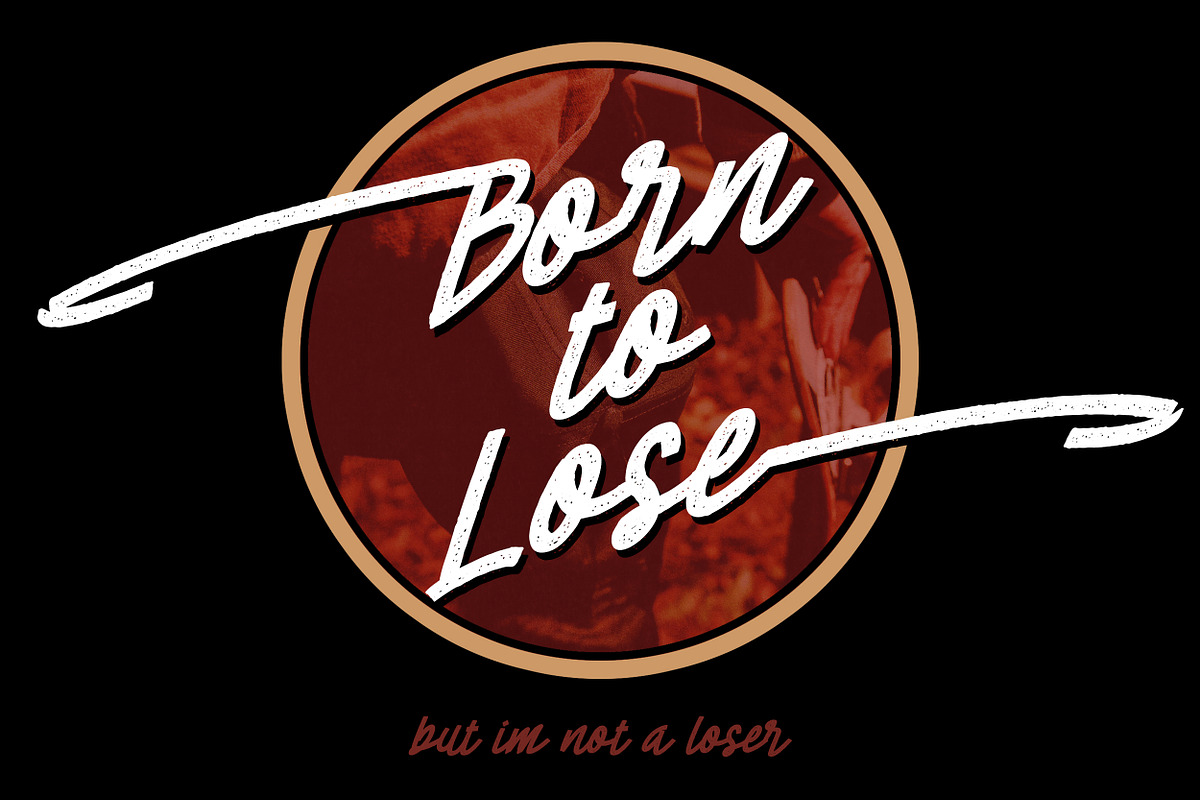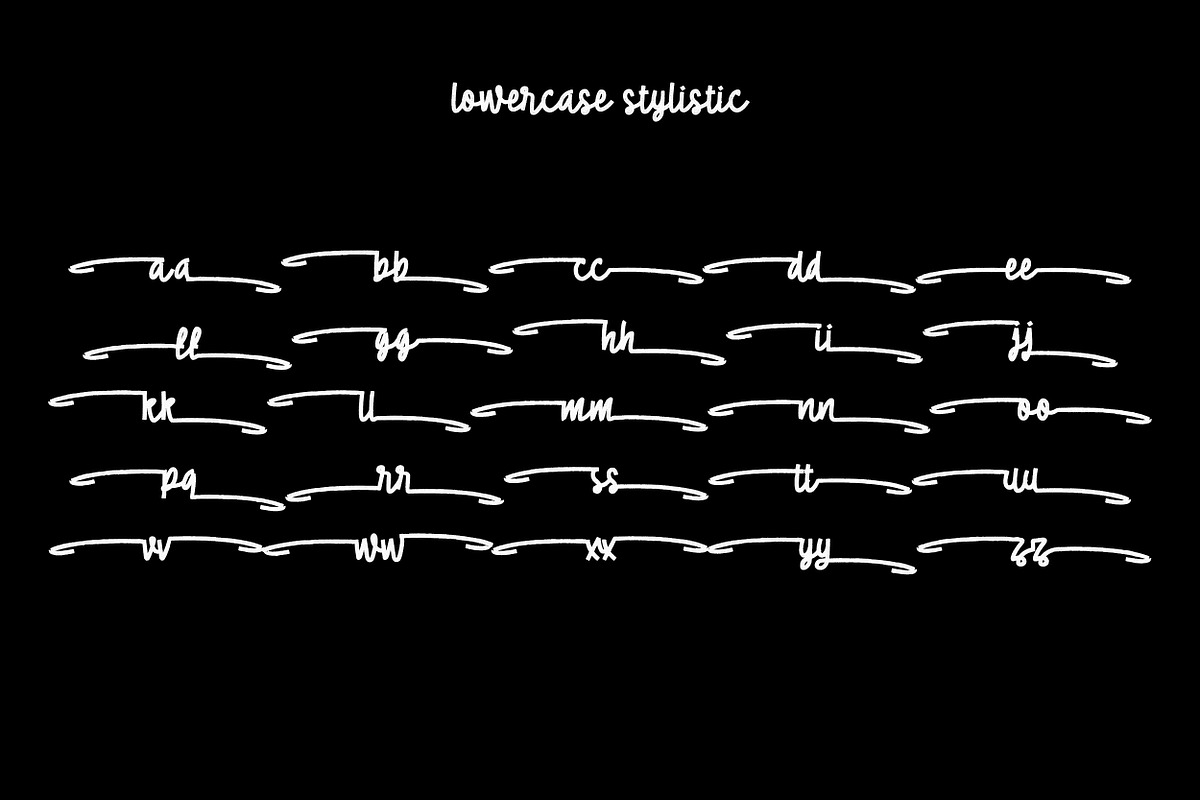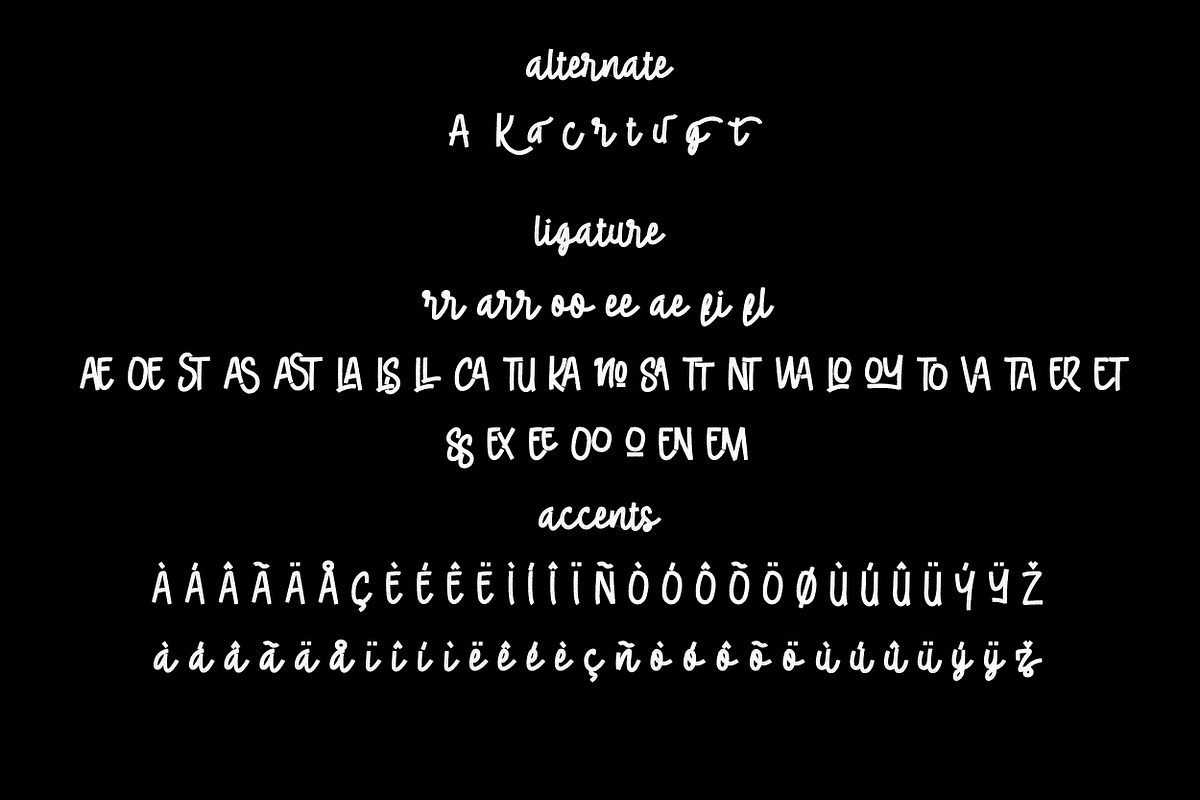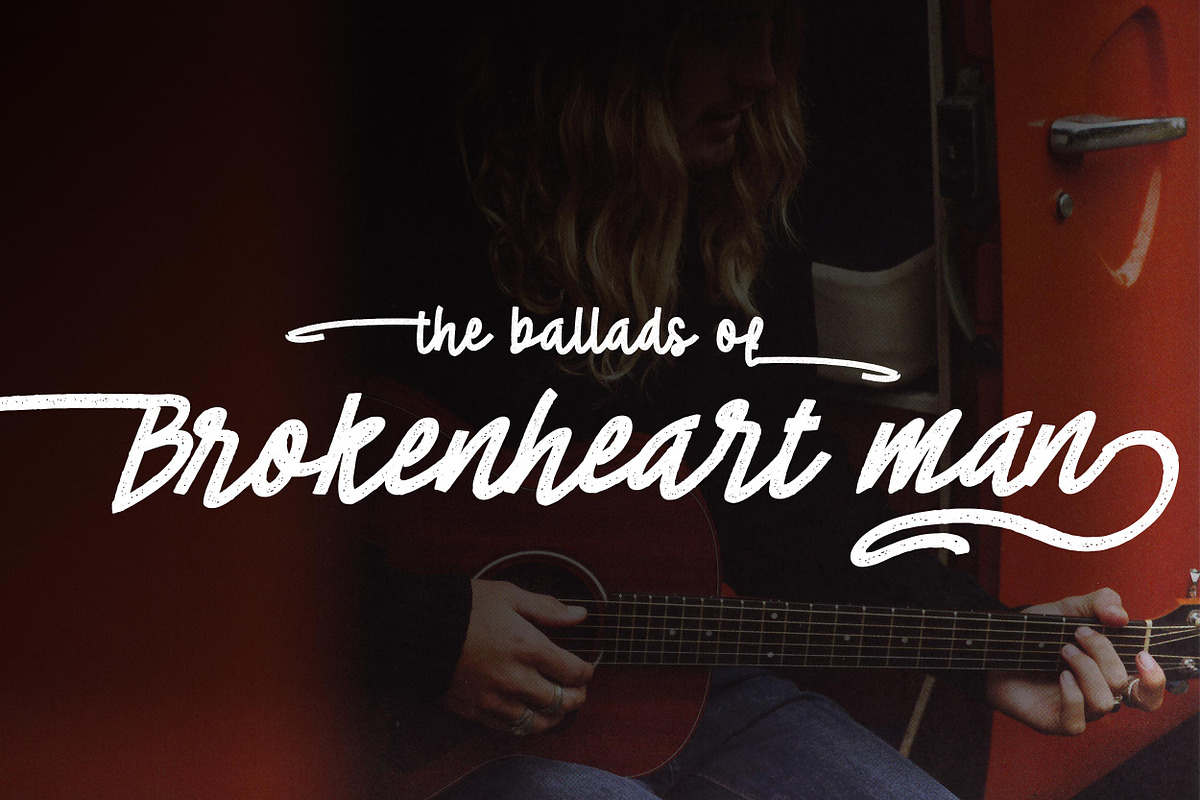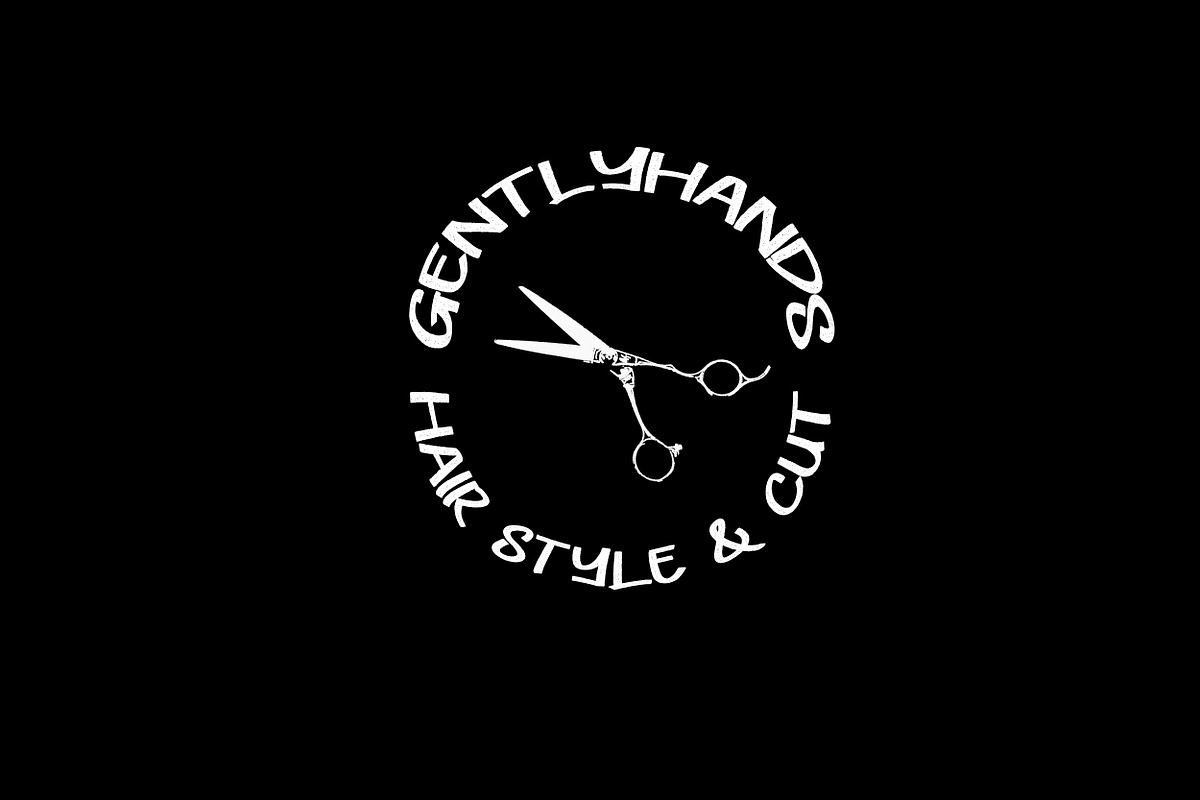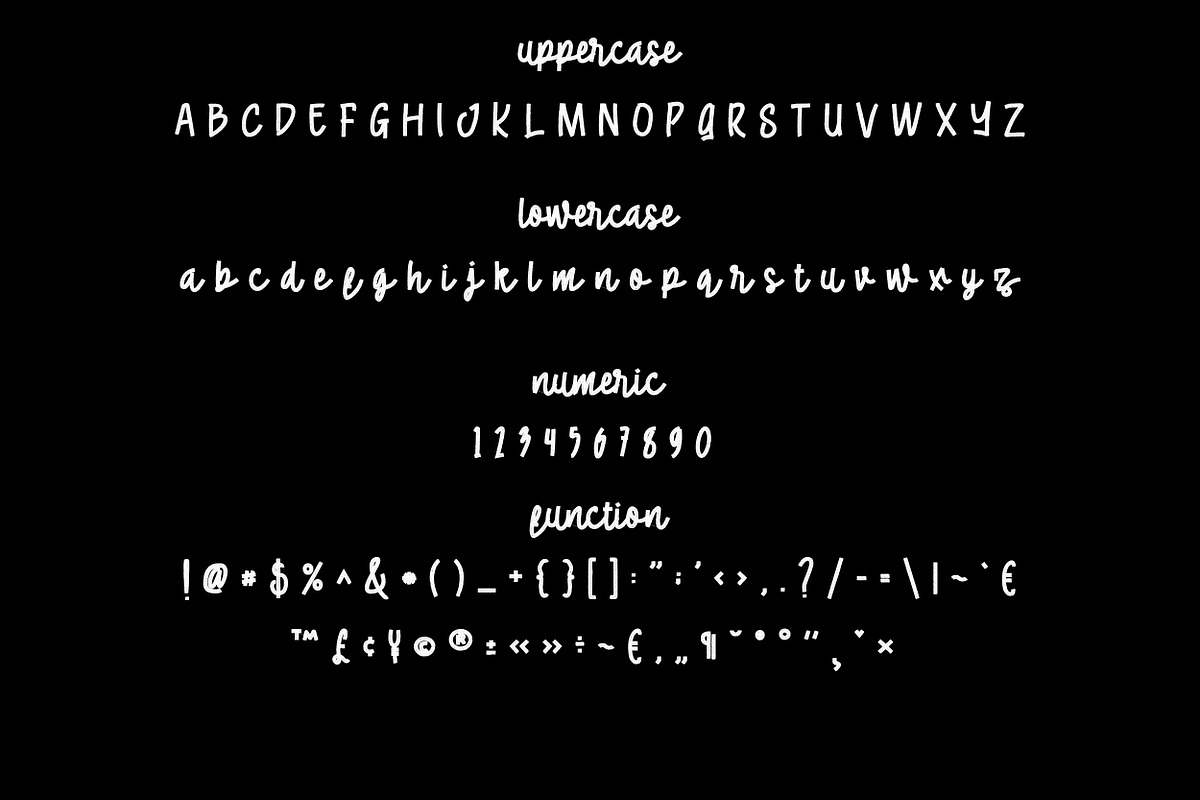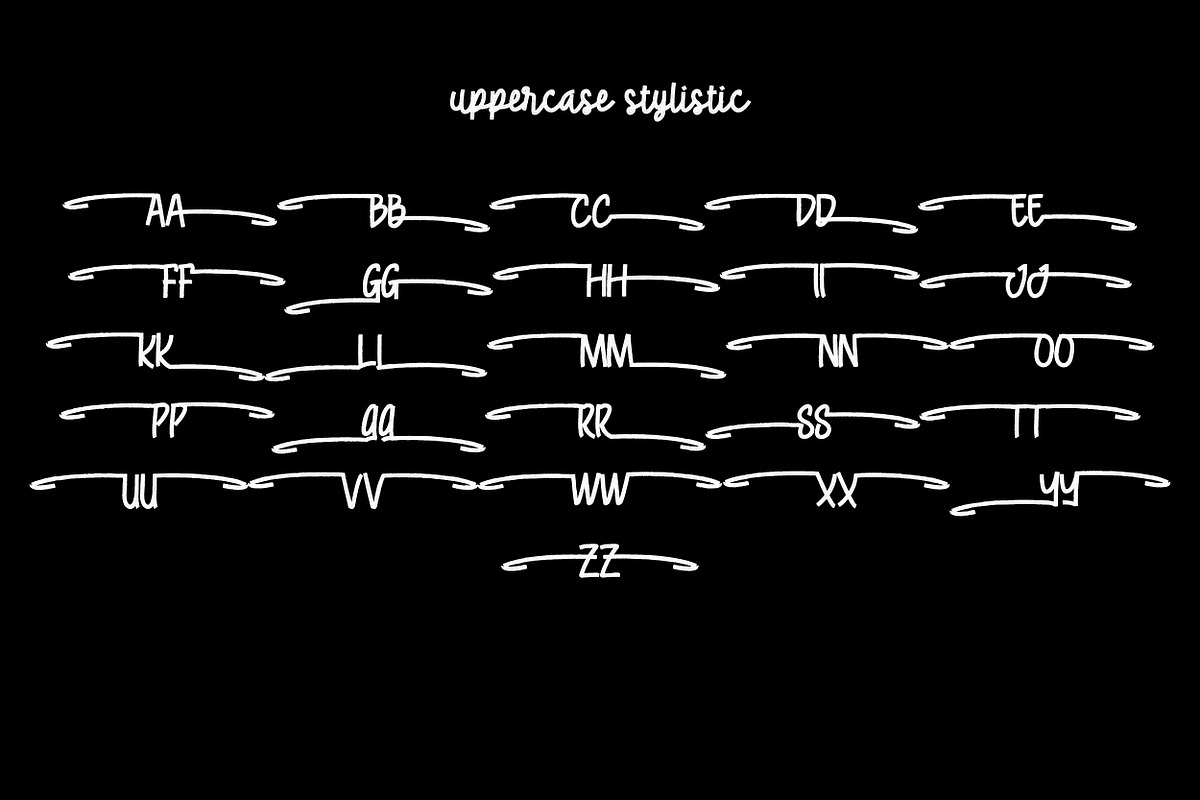
Cheese latte font duo
Say hi to cheeselatte . New standart script permanent marker font. mix of handwriting style and bold permanent marker giving some little bit naughty and rust .....
i got some ideas for Cheeselatte is from the packaging products , magazine and some books that i read. hoping to give nice touching for you ....
What is in cheeselatte duo ?
cheeselatte rust regular
cheeselatte rust italic